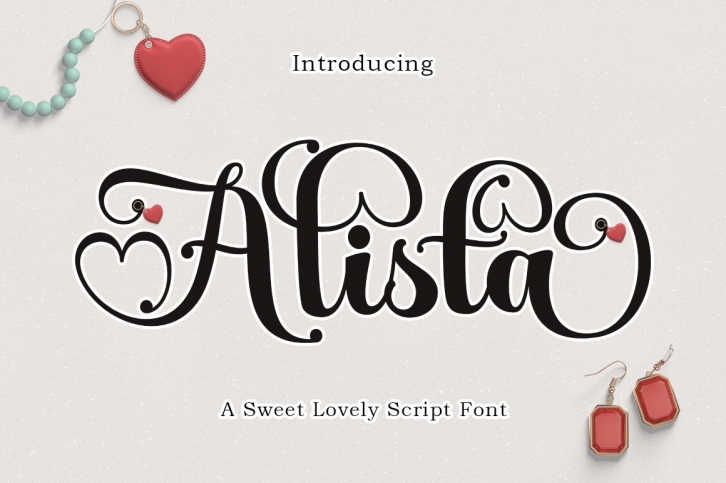
Alista Script- is a trendy and unique font with an authentic style. It was designed by Erick Studio and it's a great choice for creative people who need such a font. It was released on March 22, 2022 and the file size is 21.34 MB. Alista Script- will add an organic vibe to any design idea!